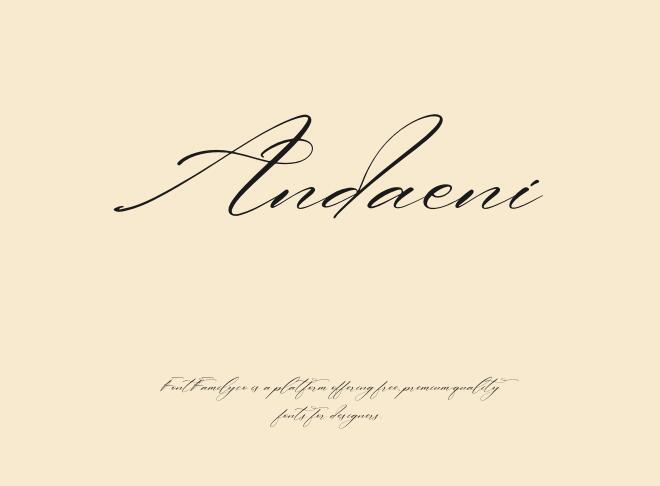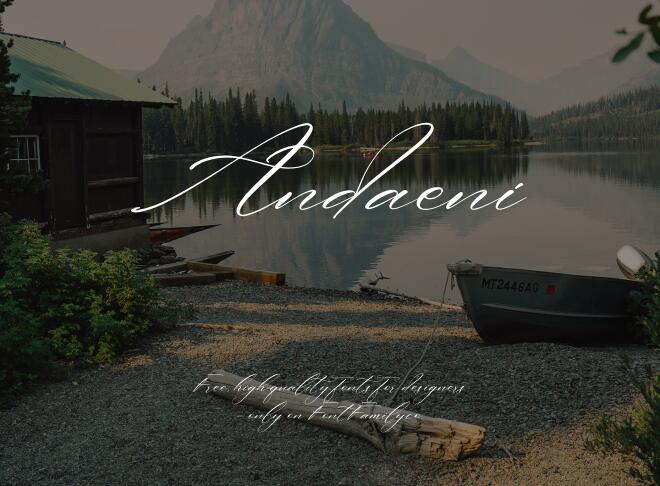
Andaeni Font
Andaeni Font is a modern, elegant script typeface from Creative Font Studio. With its handwritten style, it brings a touch of sophistication to any project. It's an ideal choice for invitations, branding, and web design where a unique, stylish touch is desired. Andaeni stands out from other fonts with its clean lines and subtle curves, making it a versatile choice for a wide range of designs. The font has a modern feel with a vintage twist, making it a timeless choice for designers. Its unique style can add a personal touch to your designs, making them stand out in a crowd. It's free for personal use, making it a great option for designers on a budget. Andaeni Font is not just a font, it's a tool that can help transform your creative ideas into impressive designs.